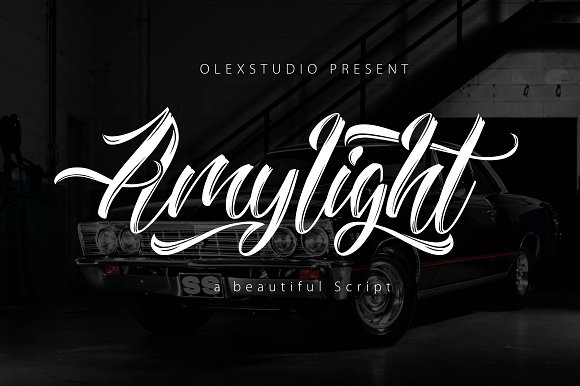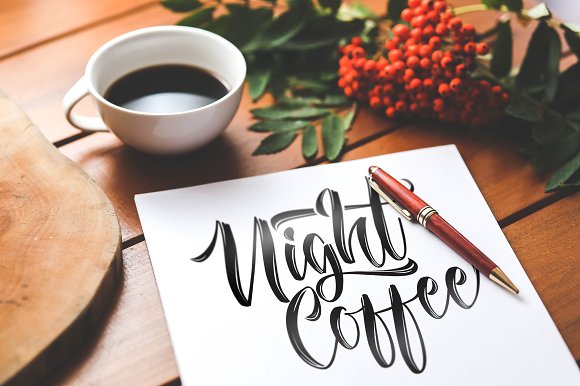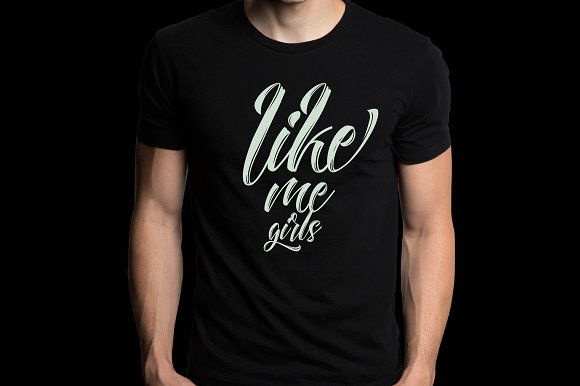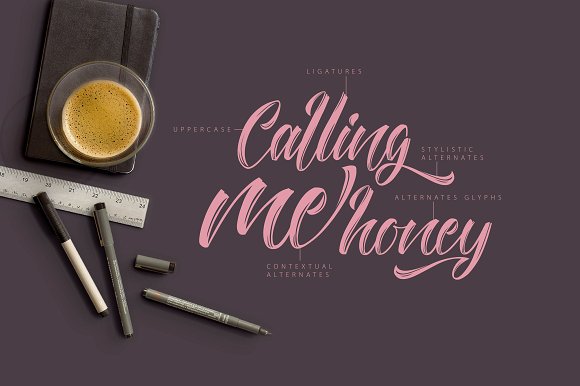
Amylight Font
About Amylight Font
Amylight, a beautiful handwritten script. It’s a fluid font that works well in many different types of projects.
This professional looking font is easy to read and works well for marketing & branding as well as craft projects.